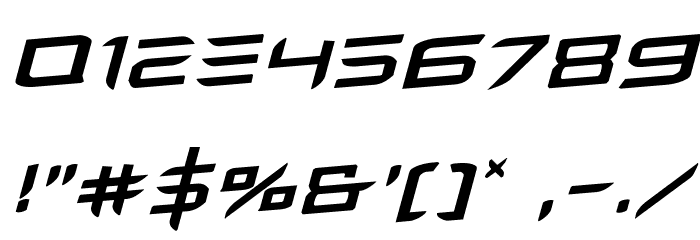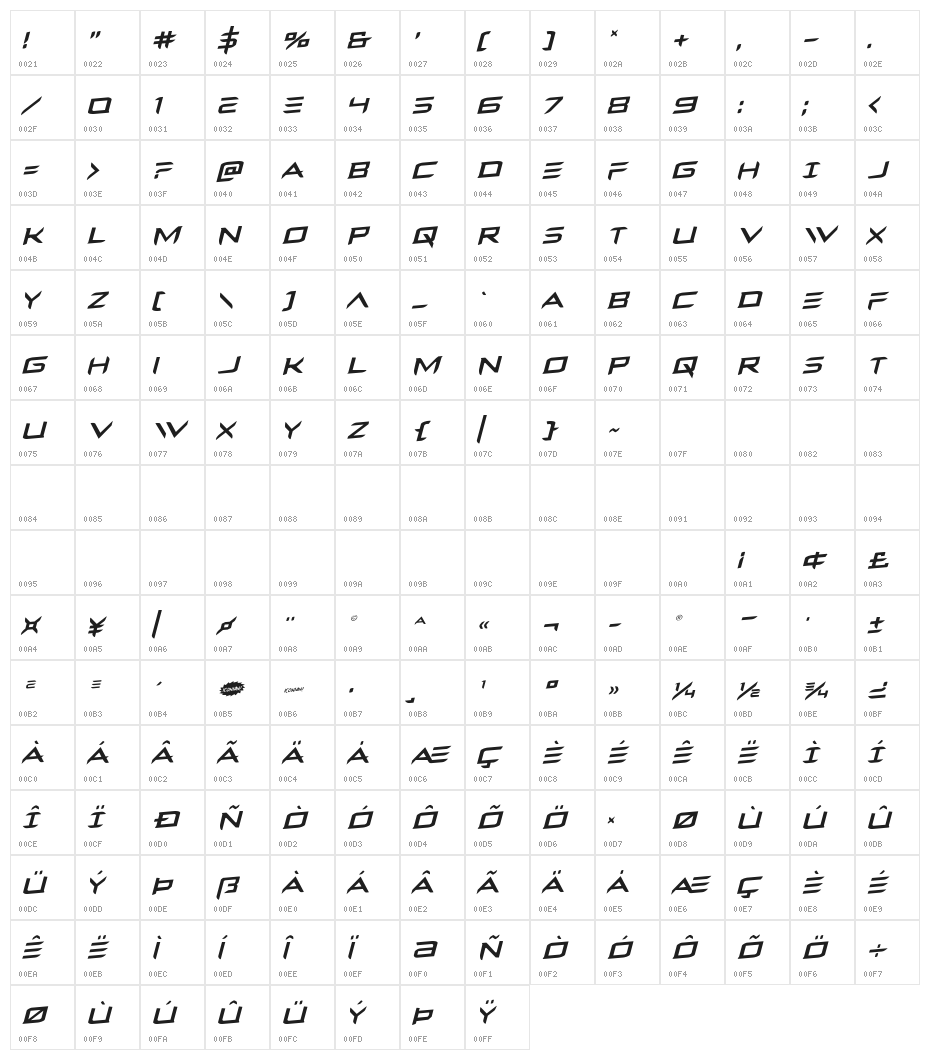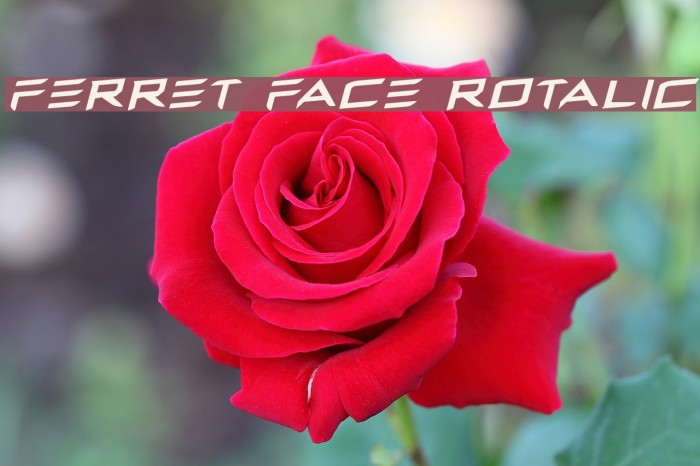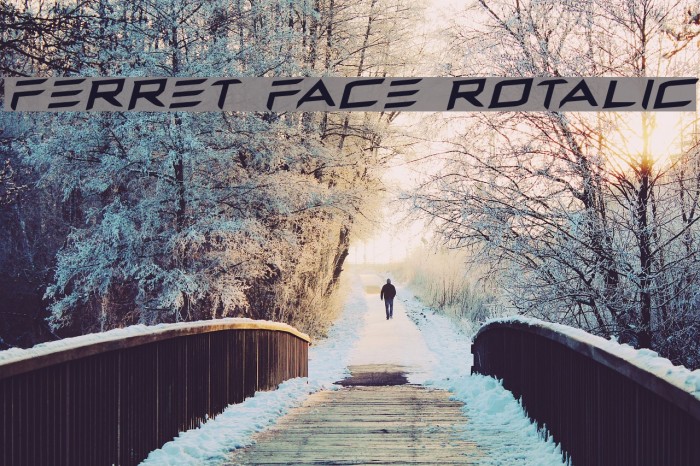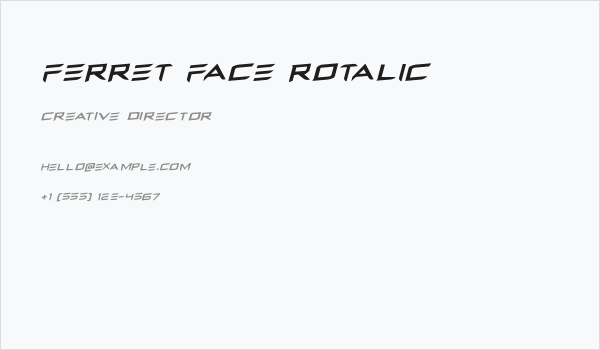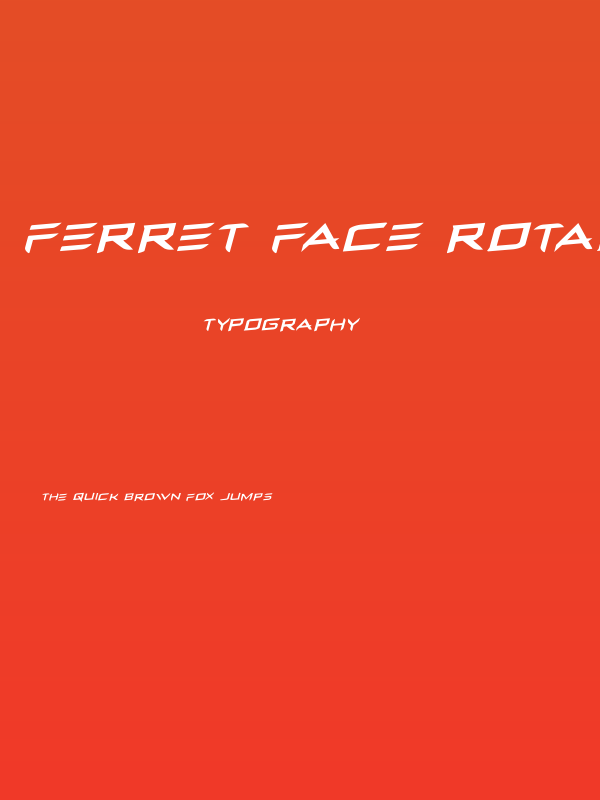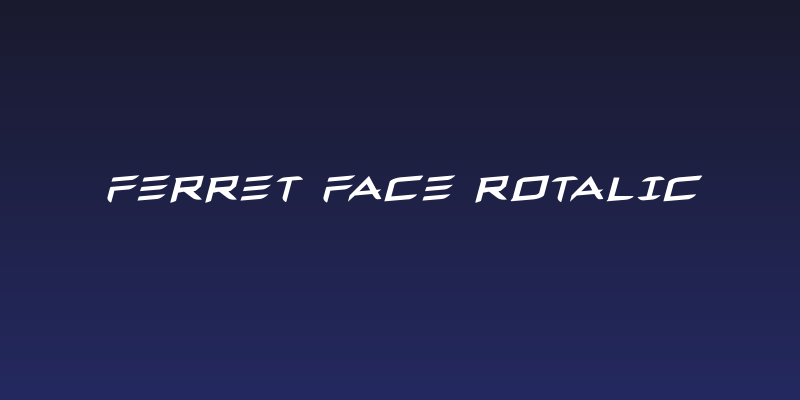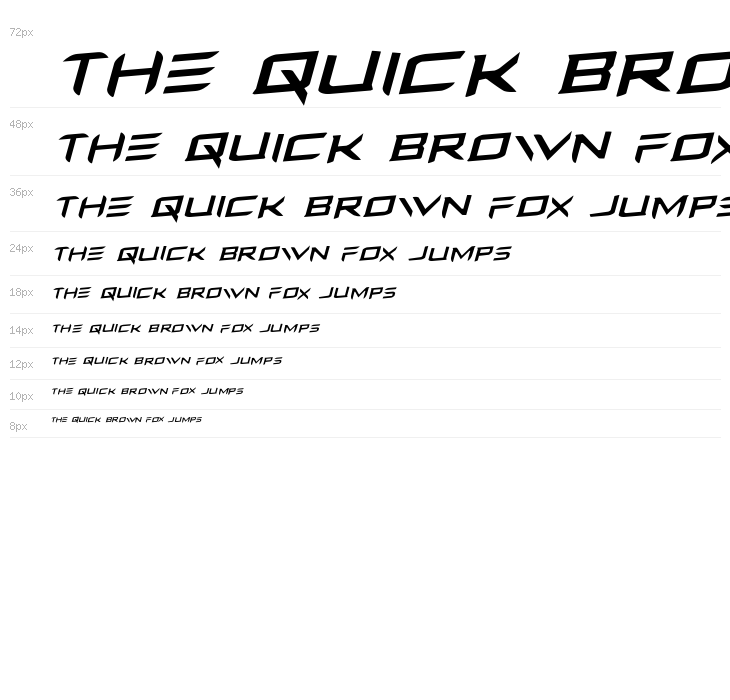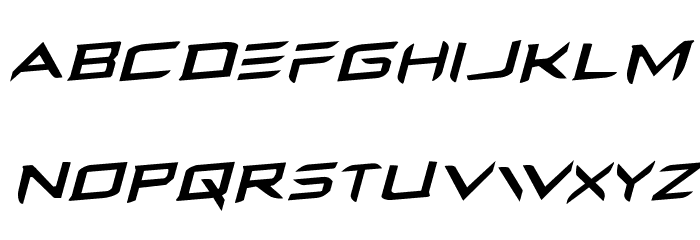
Ferret Face Rotalic Font
Ferret Face Rotalic Description
This font features a dynamic and angular design, characterized by sharp edges and a forward-leaning slant that conveys a sense of motion and energy. The uppercase and lowercase letters maintain a consistent style, with each character exhibiting a unique geometric flair. The numbers and special characters follow the same aesthetic, ensuring uniformity across all elements. This font's bold appearance and italicized form make it stand out, ideal for projects that require a modern and edgy look.
Proposed ProjectsIdeal for sports branding, dynamic posters, video game titles, and futuristic designs.